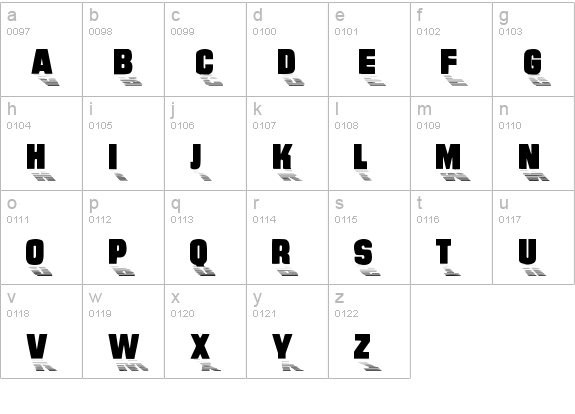
Wharmby Regular Font Details
Wharmby Regular is the standard, neutral variant in the Wharmby typeface family \xE2\x80\x94 well suited to general body text, paragraphs, and standard typographic work.
Introducing Wharmby Regular, a timeless font that effortlessly blends classic elegance with modern simplicity. This versatile typeface is perfect for a wide range of creative projects, from sophisticated branding and editorial designs to eye-catching signage and website headers. Wharmby Regular exudes a sense of refined sophistication with its clean lines and balanced letterforms. Its distinct yet subtle variations in stroke width add a touch of character and personality to each character, resulting in a harmonious visual experience. One of the most appealing aspects of Wharmby Regular is that it is available for free download at FontsMarket.com. This means that designers and enthusiasts alike can easily access and utilize this incredible font without any cost. This is a fantastic opportunity to enhance your creative projects with a high-quality typeface that perfectly captures the essence of timeless design. Whether you're working on a professional branding project or simply want to add a touch of elegance to your personal creations, Wharmby Regular is the ideal choice. Its versatility and availability as a free font make it a must-have for any design arsenal. Download Wharmby Regular today at FontsMarket.com and unleash your creativity with this exceptional typeface. Elevate your designs and make a lasting impression with the timeless beauty of Wharmby Regular.